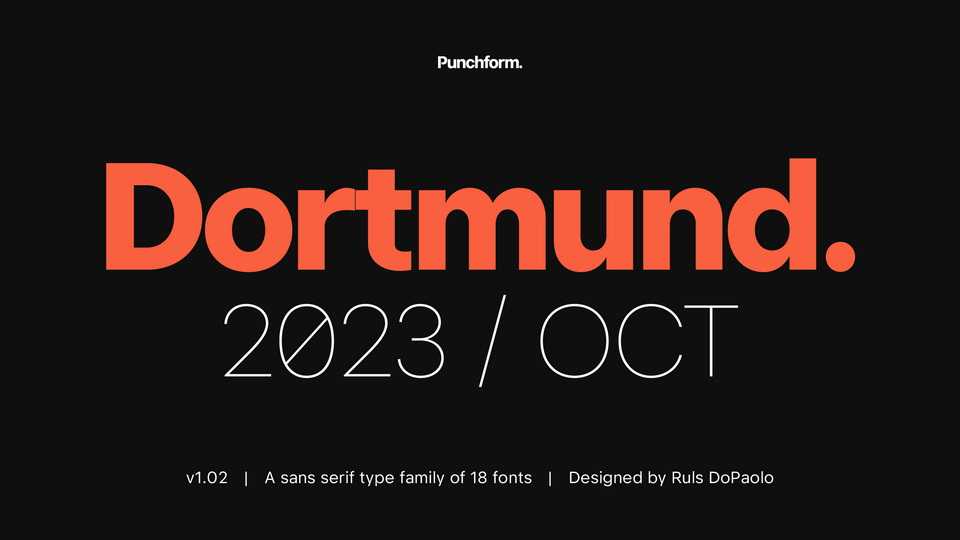
Download Dortmund font, the embodiment of versatility and clarity in a sans-serif font. With its clean and legible characters, it adapts effortlessly to a myriad of design contexts.
Designer: Punchform